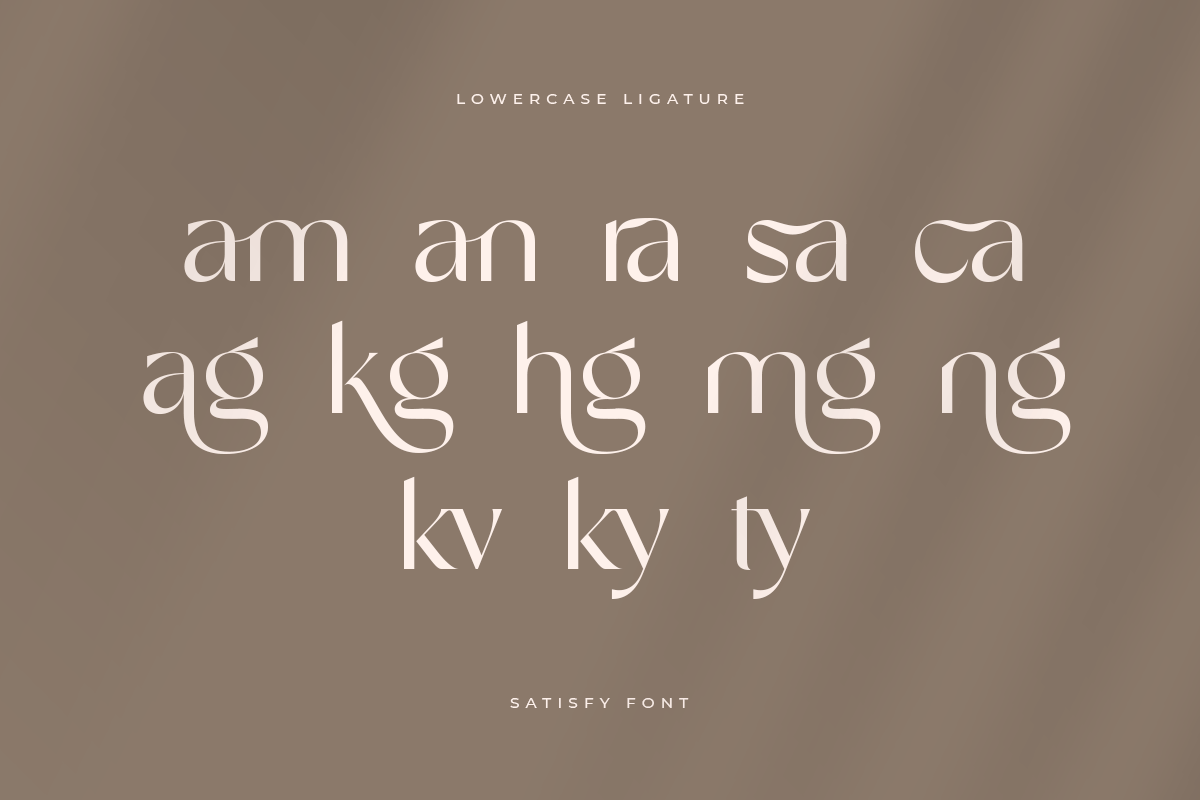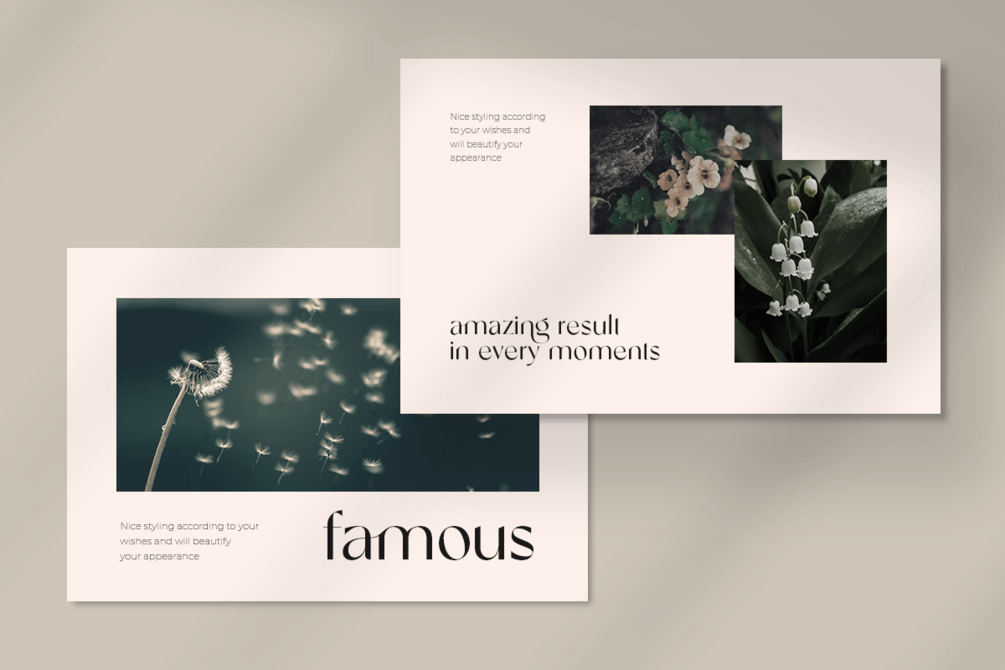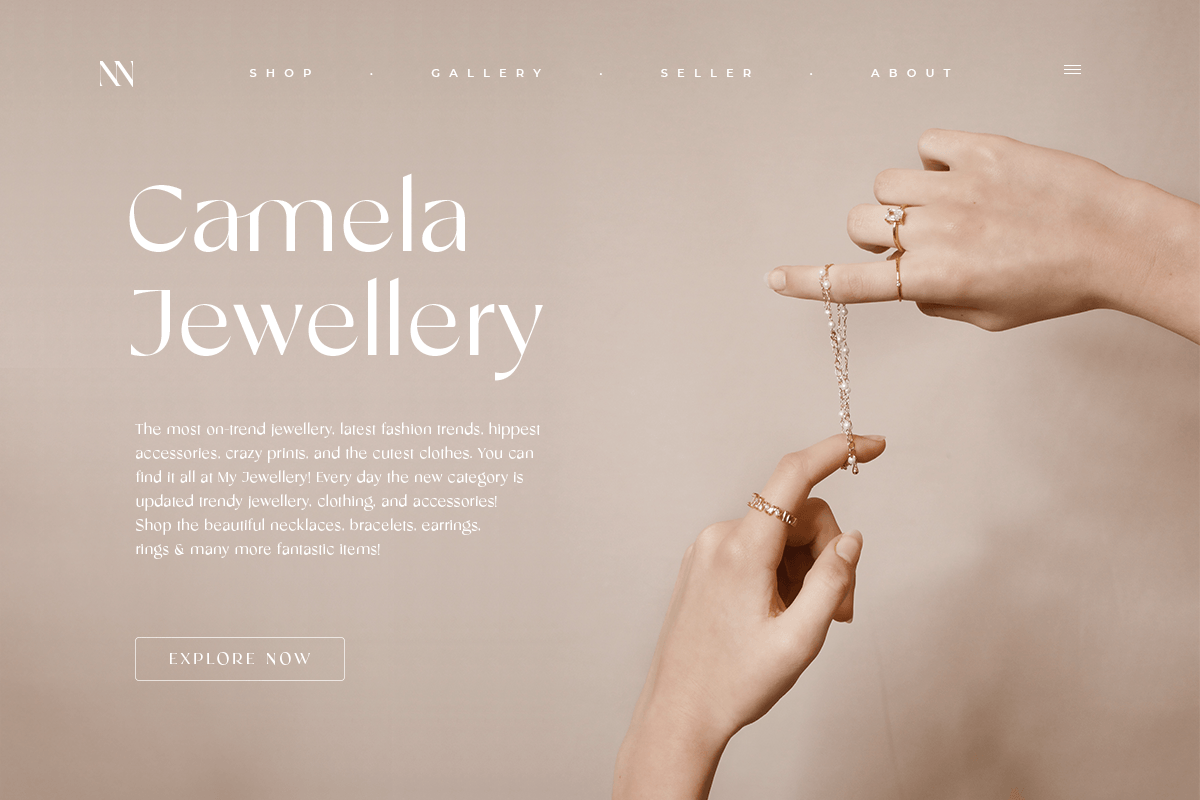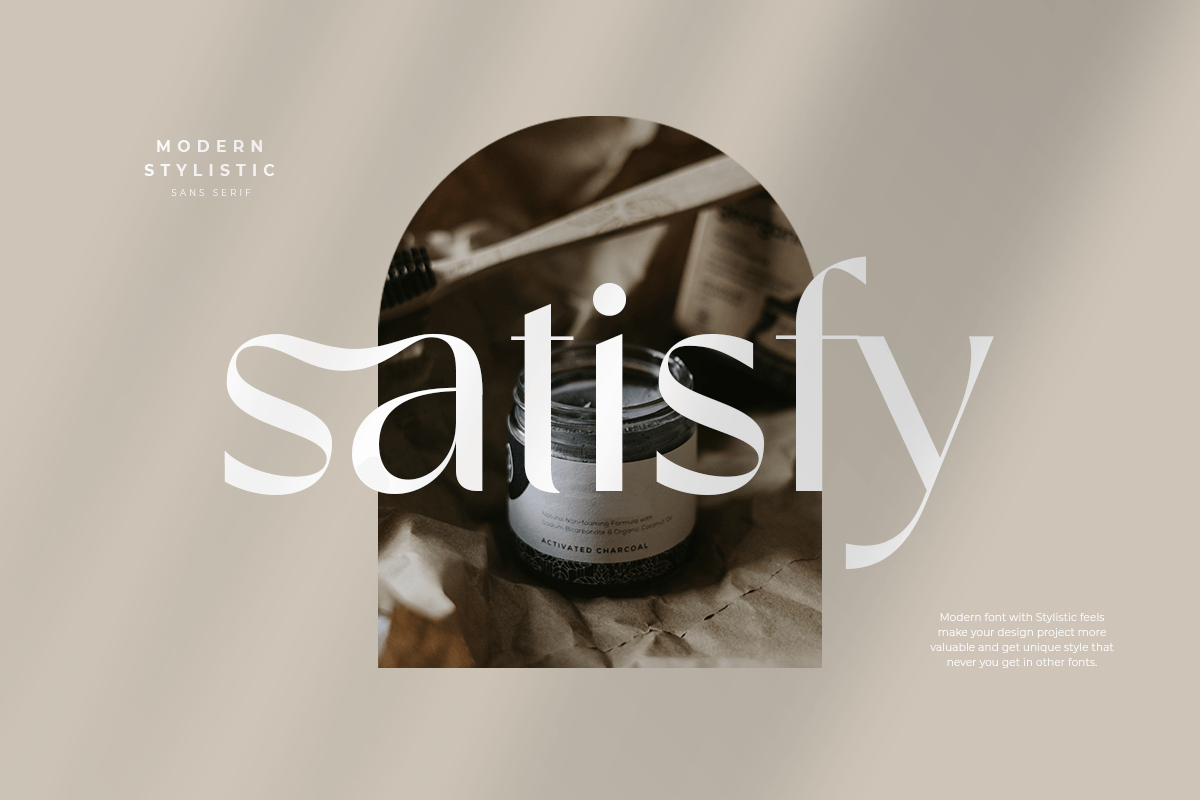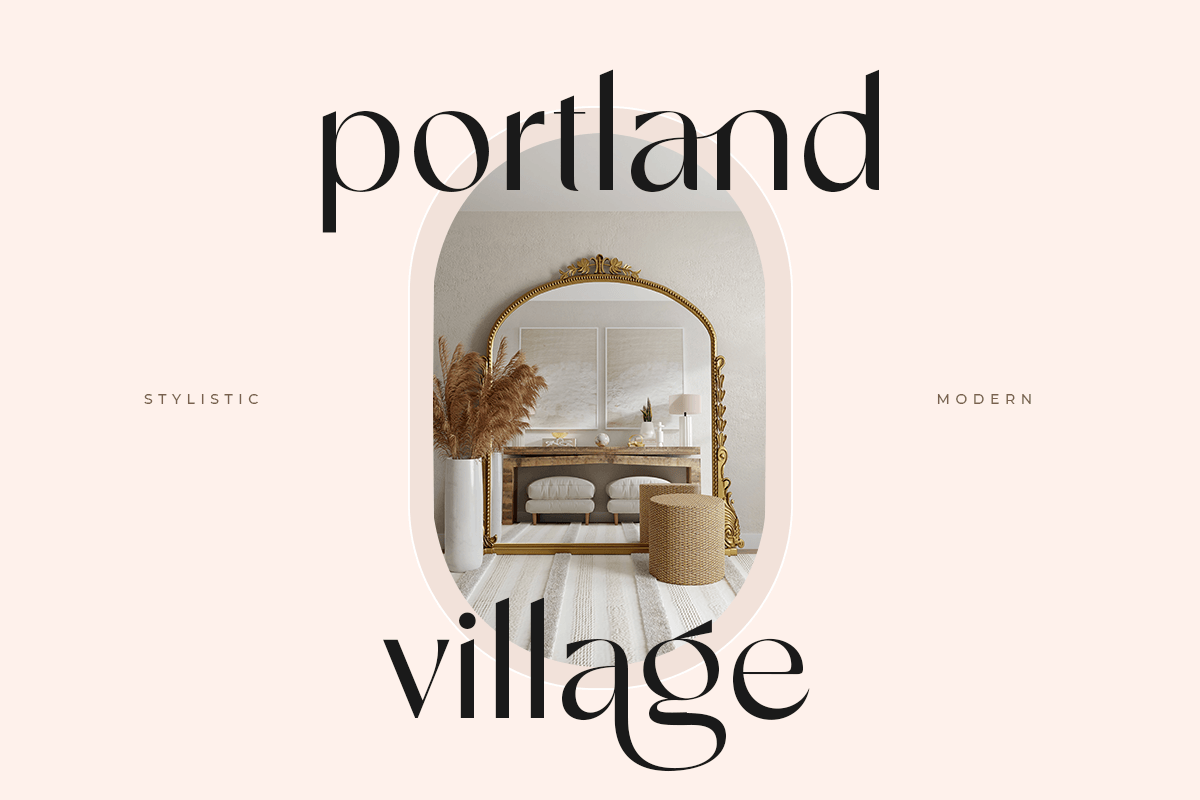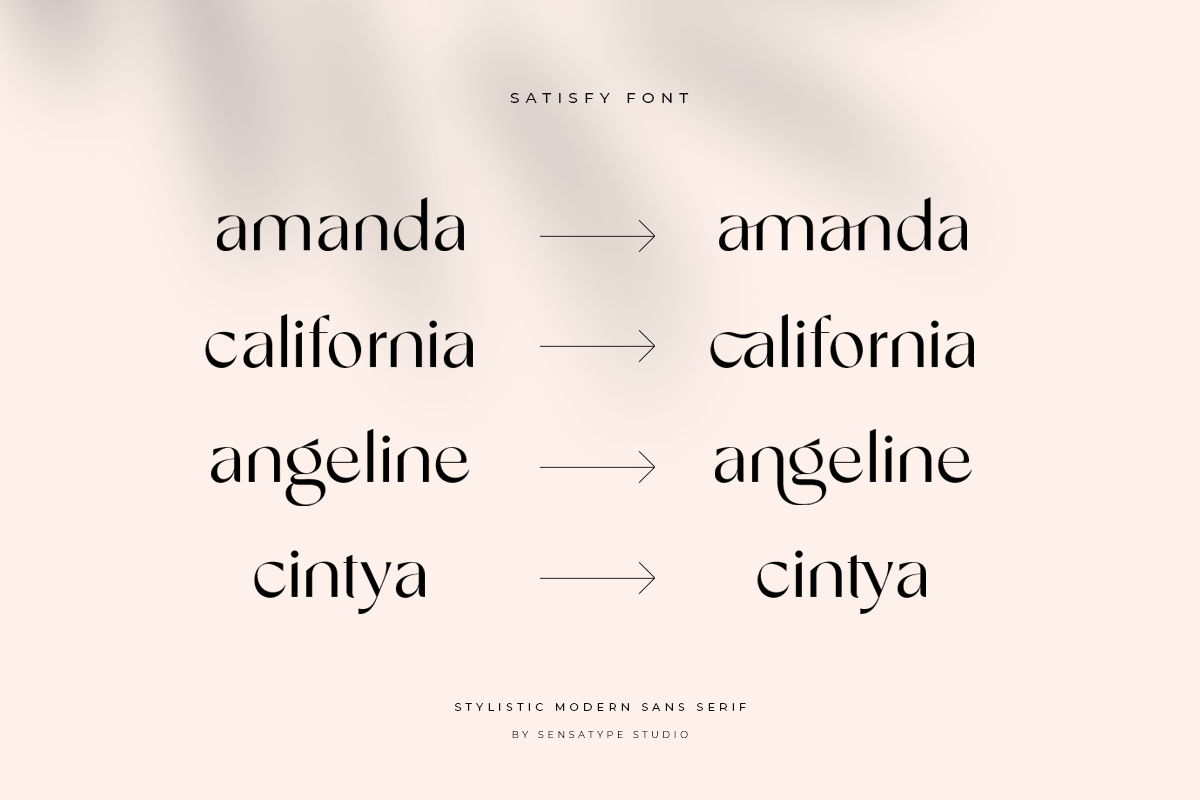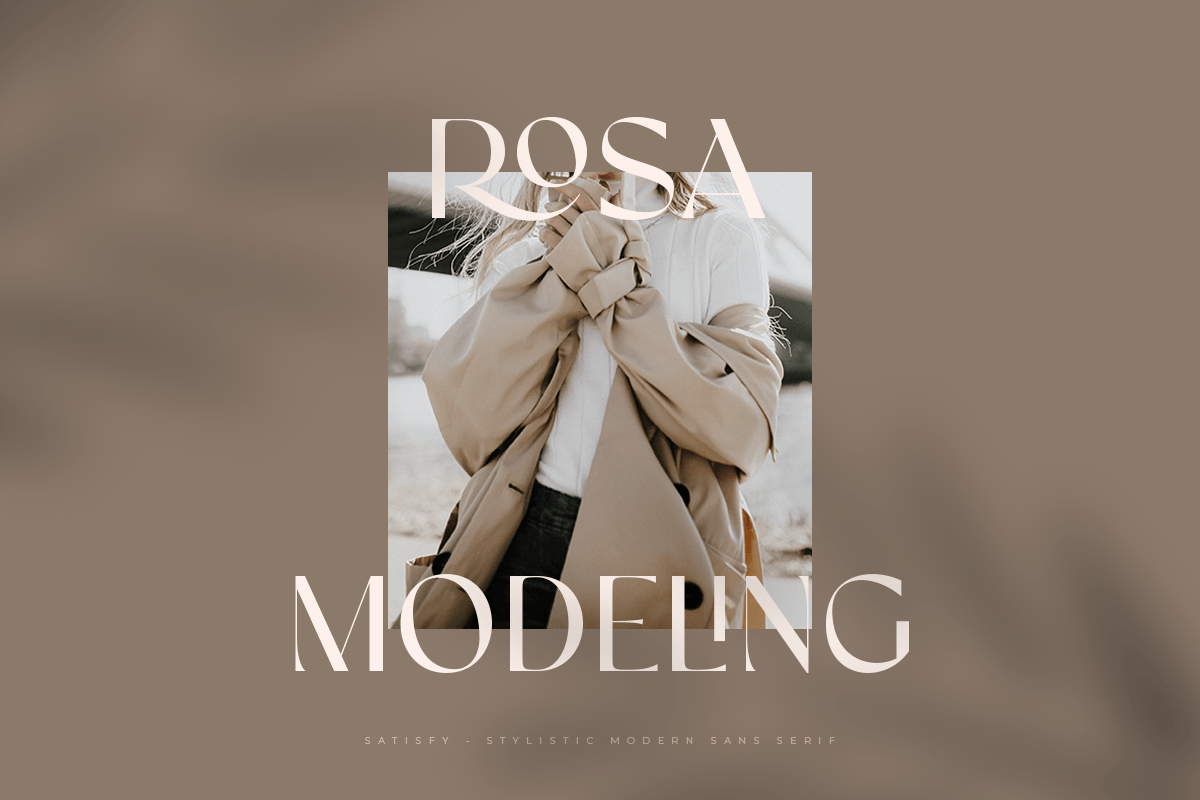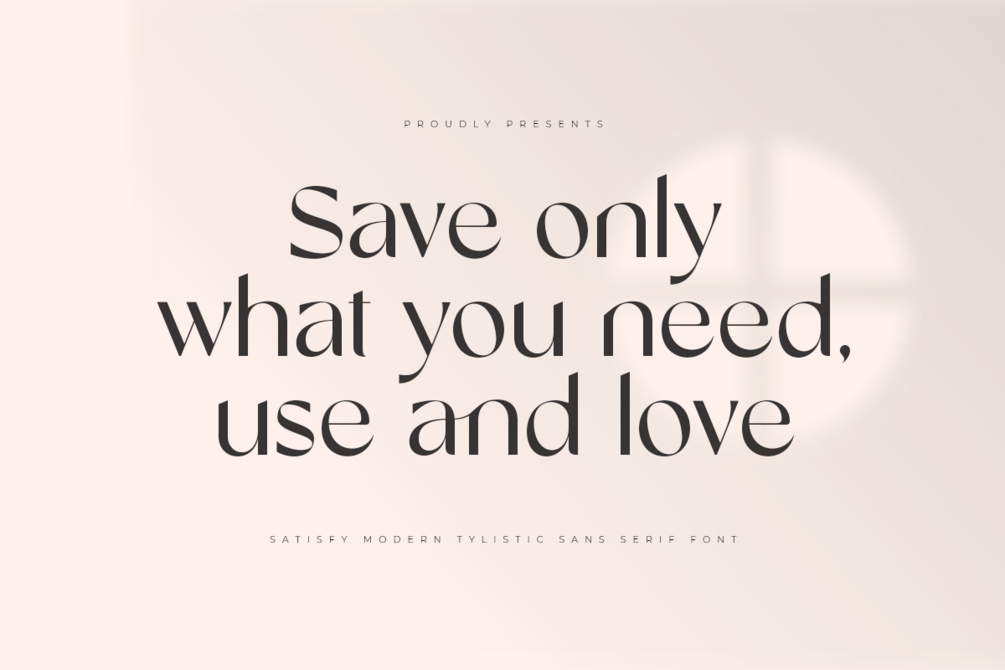
Satisfy - Modern Stylistic Sans Serif
Satisfy is a modern stylistic sans serif font designed to elevate your creative projects with sleek, contemporary letterforms. Perfect for branding, logos, headlines, packaging, web interfaces, and editorial designs, it balances readability with a unique, stylish flair.
Its clean and professional style ensures a versatile look for both digital and print media, making Satisfy an ideal choice for designers seeking modern elegance and distinctive typography.
Satisfy – Modern Stylistic Sans Serif Font Features
• Modern and stylistic character set
• Clean, professional, and unique design
• Includes uppercase, lowercase, numerals, and punctuation
• Suitable for digital and print projects
• OpenType features for extra versatility
• Multilingual support